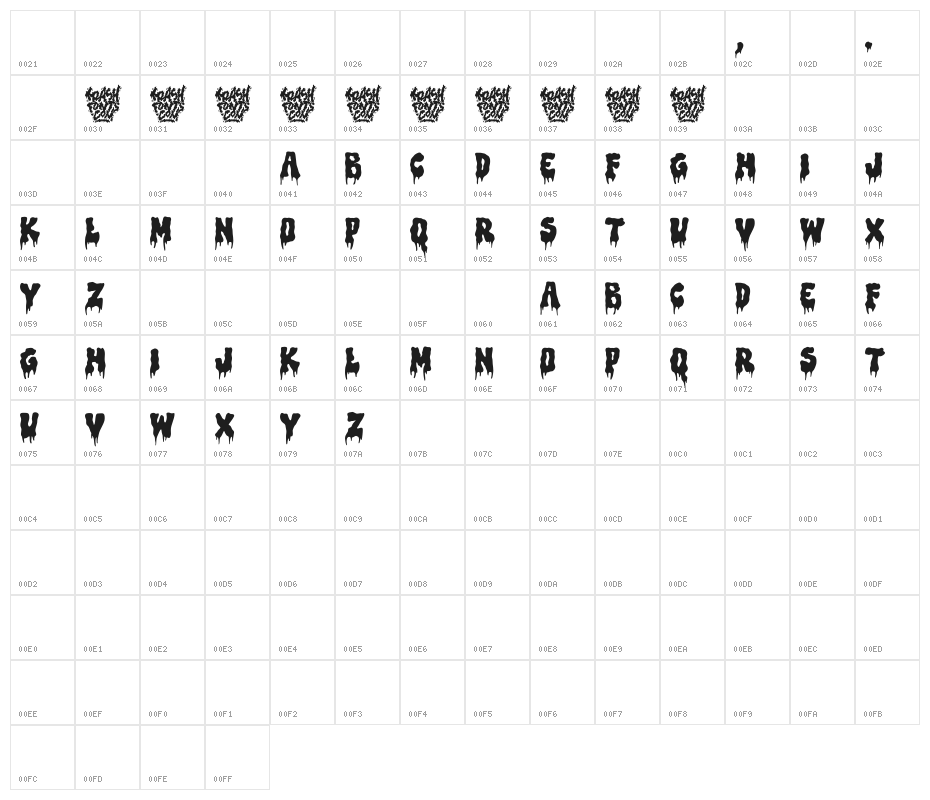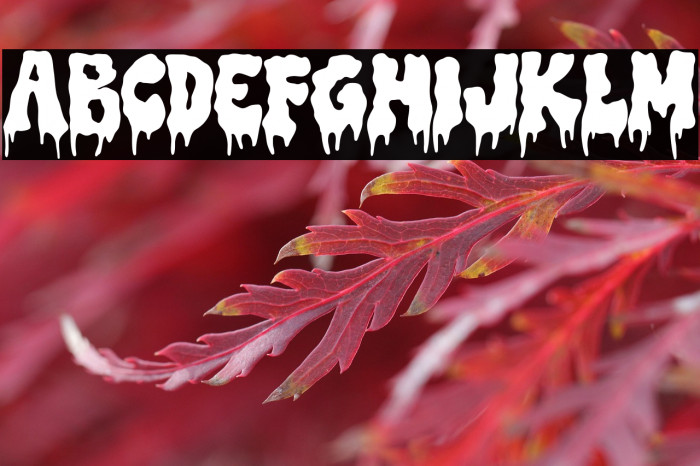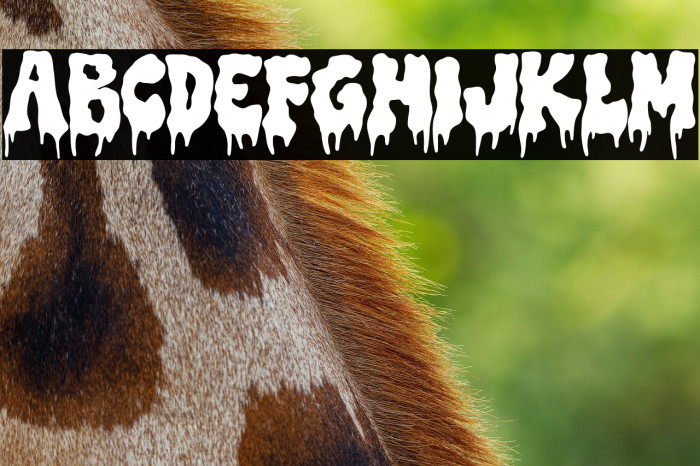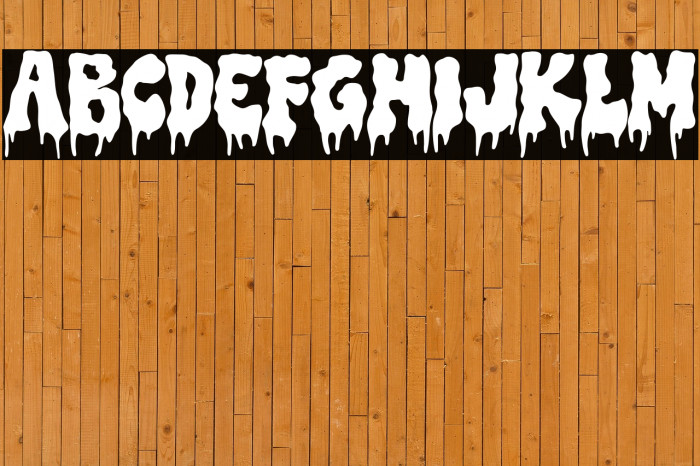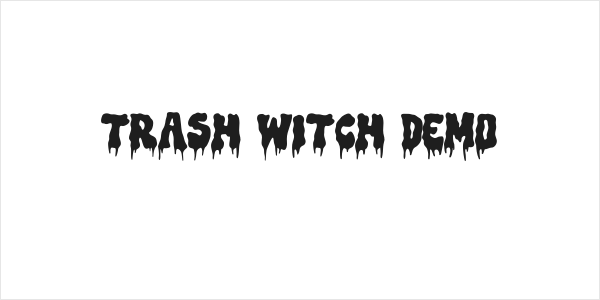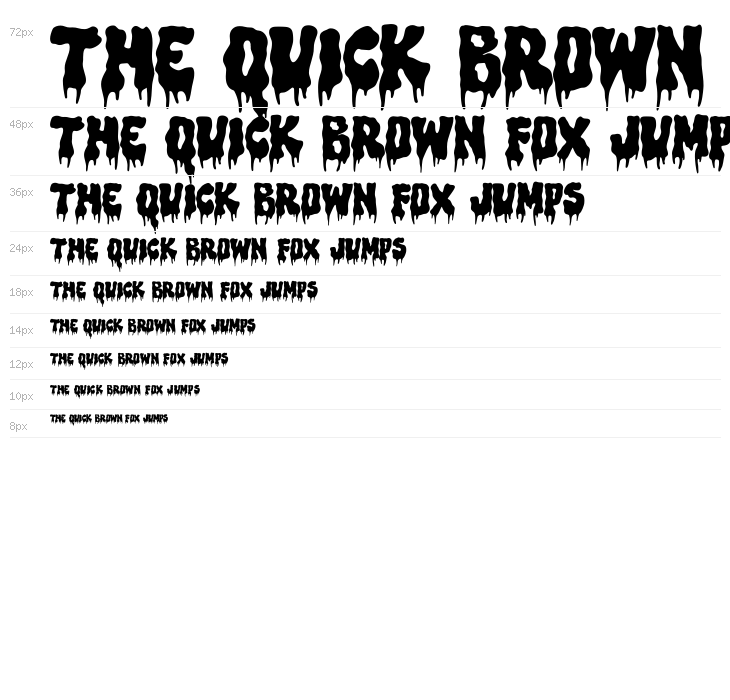
Trash Witch DEMO Font
Trash Witch DEMO Description
This font features a bold, dripping style reminiscent of melting or oozing substances, giving it a distinctly eerie and horror-themed appearance. The uppercase letters are heavily stylized with exaggerated curves and points, creating a sense of movement and fluidity. The lowercase letters maintain this theme, offering a cohesive look across different text sizes. The numbers and special characters are equally dramatic, ensuring consistency throughout. This font's unique design makes it ideal for projects requiring a spooky or unconventional aesthetic.
| Proposed Projects | Ideal for Halloween posters, horror movie titles, themed event invitations, and spooky merchandise designs. |